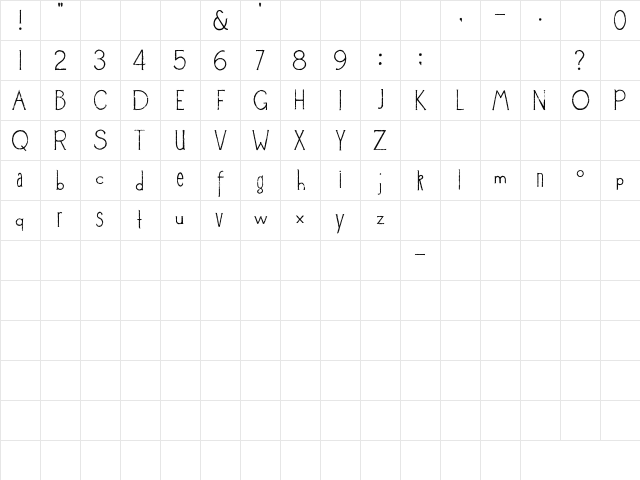
2Peas Chatter 2Peas Chatter Free Font
2Peas Chatter 2Peas Chatter
Style: 2Peas Chatter
2Peas Chatter Family
Complete 2Peas Chatter 2Peas Chatter glyph index. Displaying only characters natively supported by 2Peas Chatter 2Peas Chatter font.
Design Context for 2Peas Chatter
2Peas Chatter is a composed and adaptable typeface that performs quietly and consistently across a wide range of design contexts.
Pro Tip: Use 2Peas Chatter in both headline and body roles to test its range before committing to a single application.